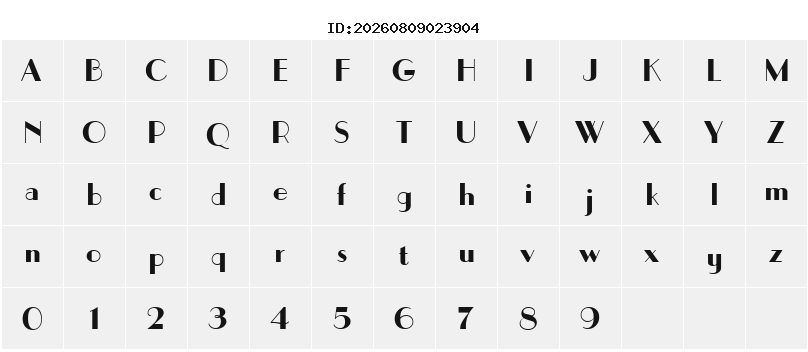
• Font Name: PictonGraphic
• Full Font Name: PictonGraphic
About PictonGraphic.ttf
PictonGraphic.ttf is a modern, elegant sans-serif font designed for ultimate readability and visual harmony. Perfect for branding, headlines, web design, and print materials.